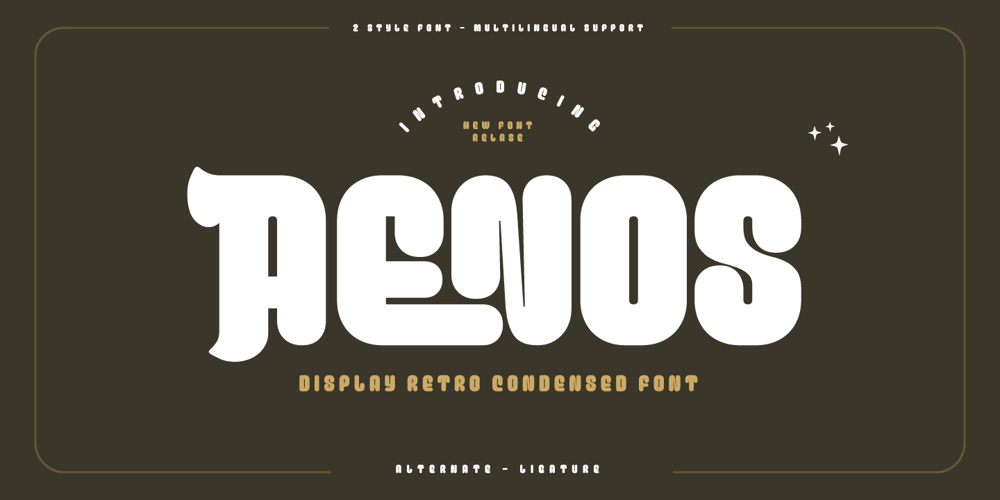
Aenos Font Family was designed by Lita Faolina and published by Product Type. Aenos contains 2 styles and family package options. Aenos is a retro condensed display font, ideal for creating eye-catching titles and headlines that appear strong, unique, and clean. Its bold, sturdy appearance works well with medium or large font sizes while maintaining legibility. The Aenos font is also enriched with optional ligatures and Alternate. So use this font right away to make your project stand out. What’s Included :- File font – All glyphs Iso Latin 1- Ligature, Alternate- We highly recommend using a program that supports OpenType features and Glyphs panels like many Adobe apps and Corel Draw, so you can see and access all Glyph variations.- PUA Encoded Characters – Fully accessible without additional design software.- Fonts include Multilingual supportThank you for your purchase!